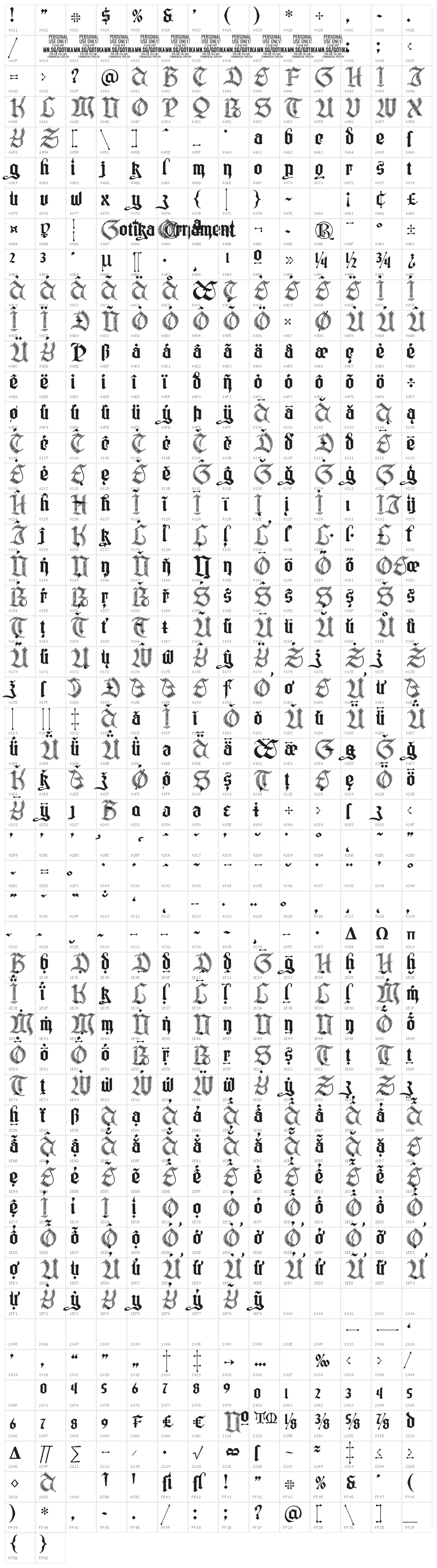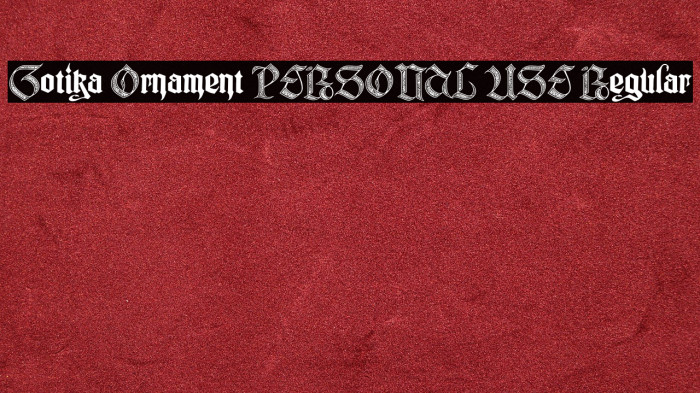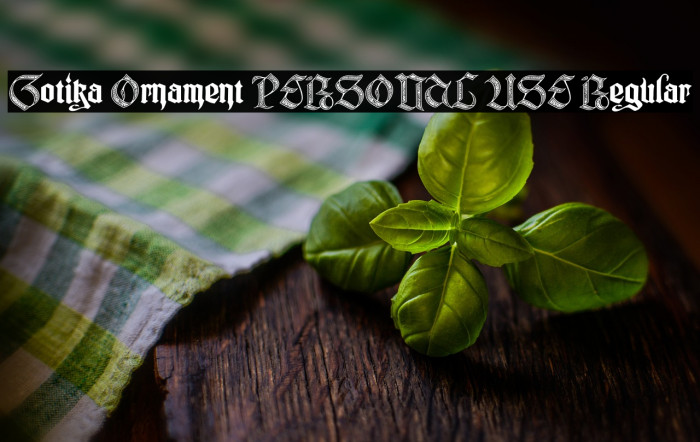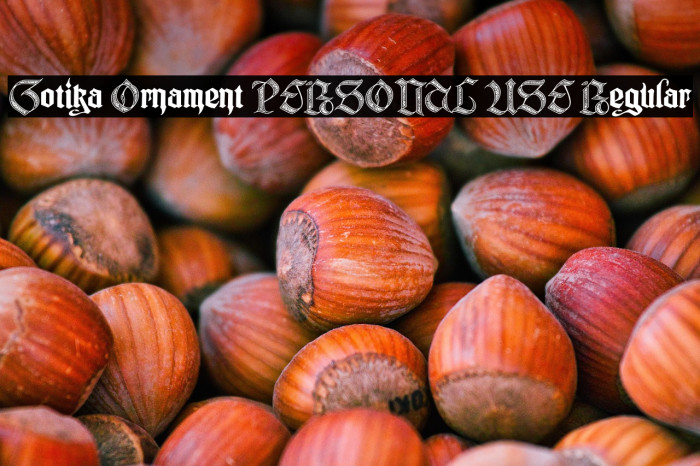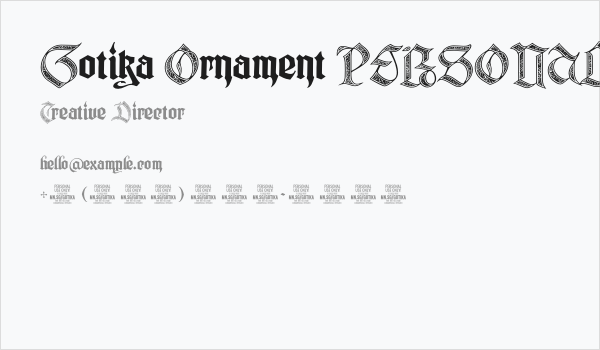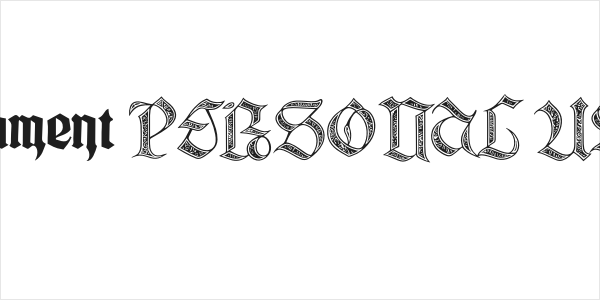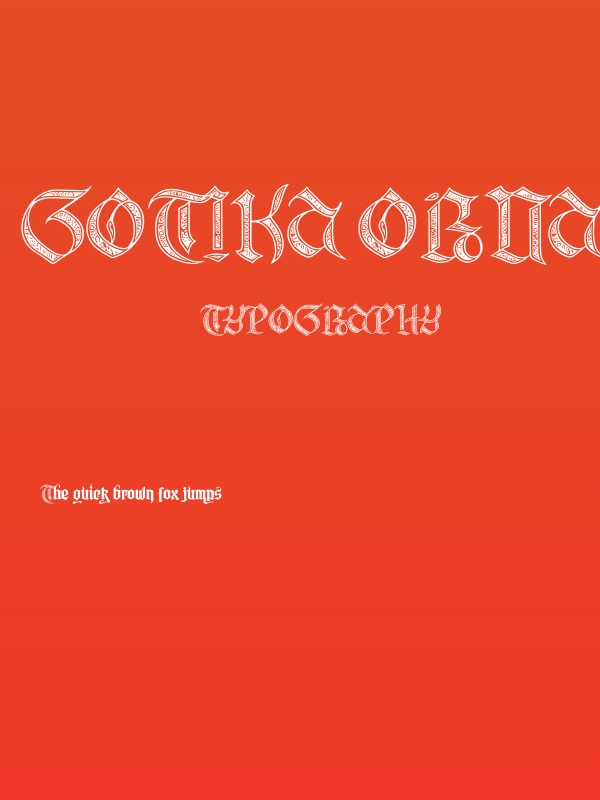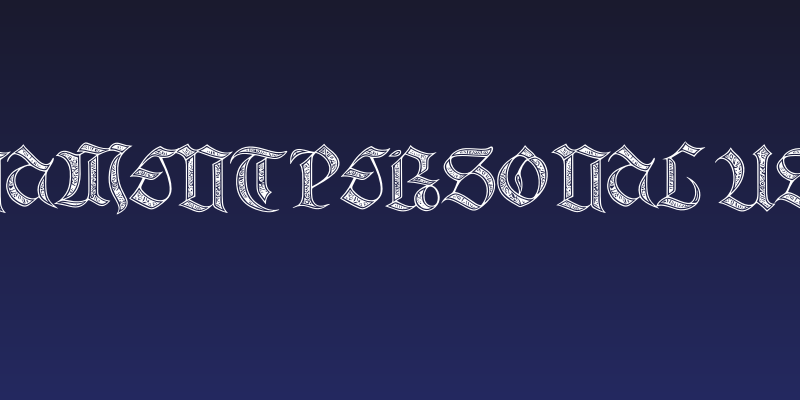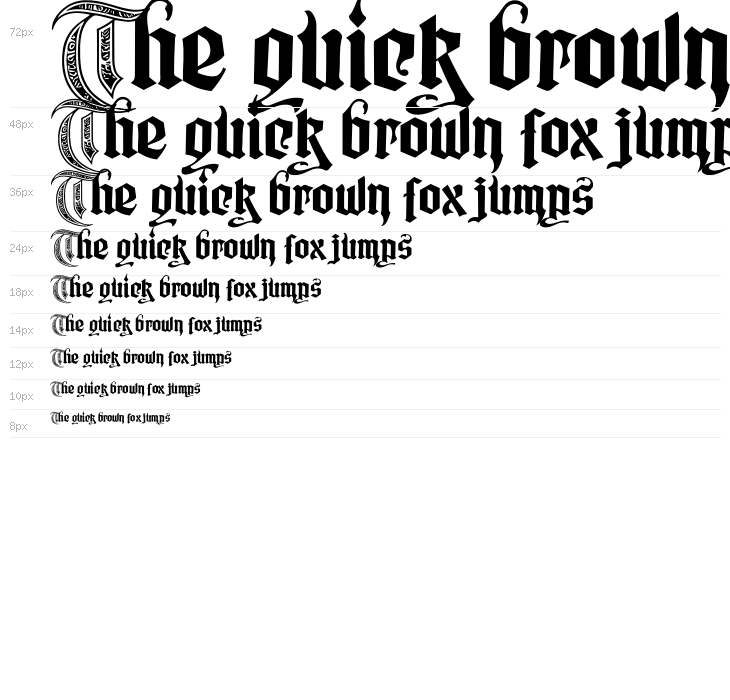
Gotika Ornament PERSONAL USE Regular Font
Gotika Ornament PERSONAL USE Regular Description
This font features a striking and intricate design, reminiscent of traditional Gothic script with ornamental details. The uppercase letters are adorned with decorative elements that enhance their medieval aesthetic, while the lowercase letters maintain a bold and structured appearance. The numerals and special characters are equally ornate, contributing to the overall cohesive style. This font's elaborate and historical look makes it ideal for projects that require a touch of elegance and antiquity.
| Proposed Projects | Suitable for use in historical themed designs, wedding invitations, book covers, and branding that requires a classic and elegant touch. |